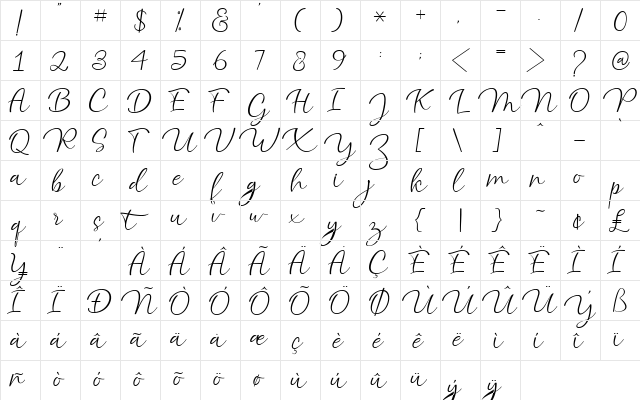
atlantic Script Regular
| Foundry | Akifatype Studio |
| Designer | Akifatype Studio |
Design Context for atlantic Script Typeface
atlantic Script flows with the natural rhythm of handwritten lettering, making it ideal for designs that call for warmth and personal expression.